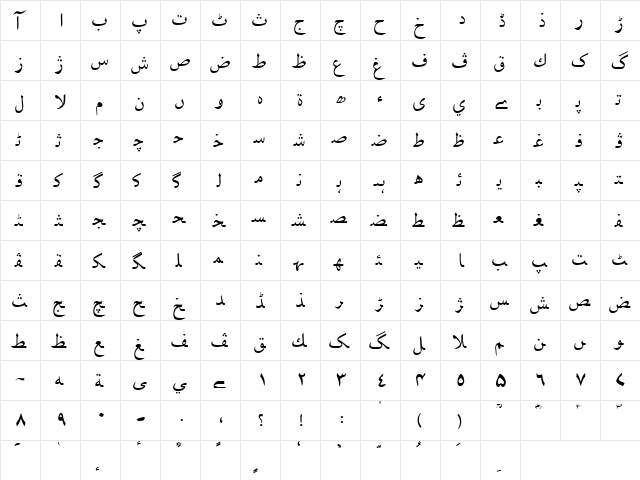
Urdu Naqsh Naqsh
Design Context for Urdu Naqsh Typeface
Urdu Naqsh offers clean, dependable letterforms without strong stylistic allegiance, making it a practical choice for designers who need flexibility.